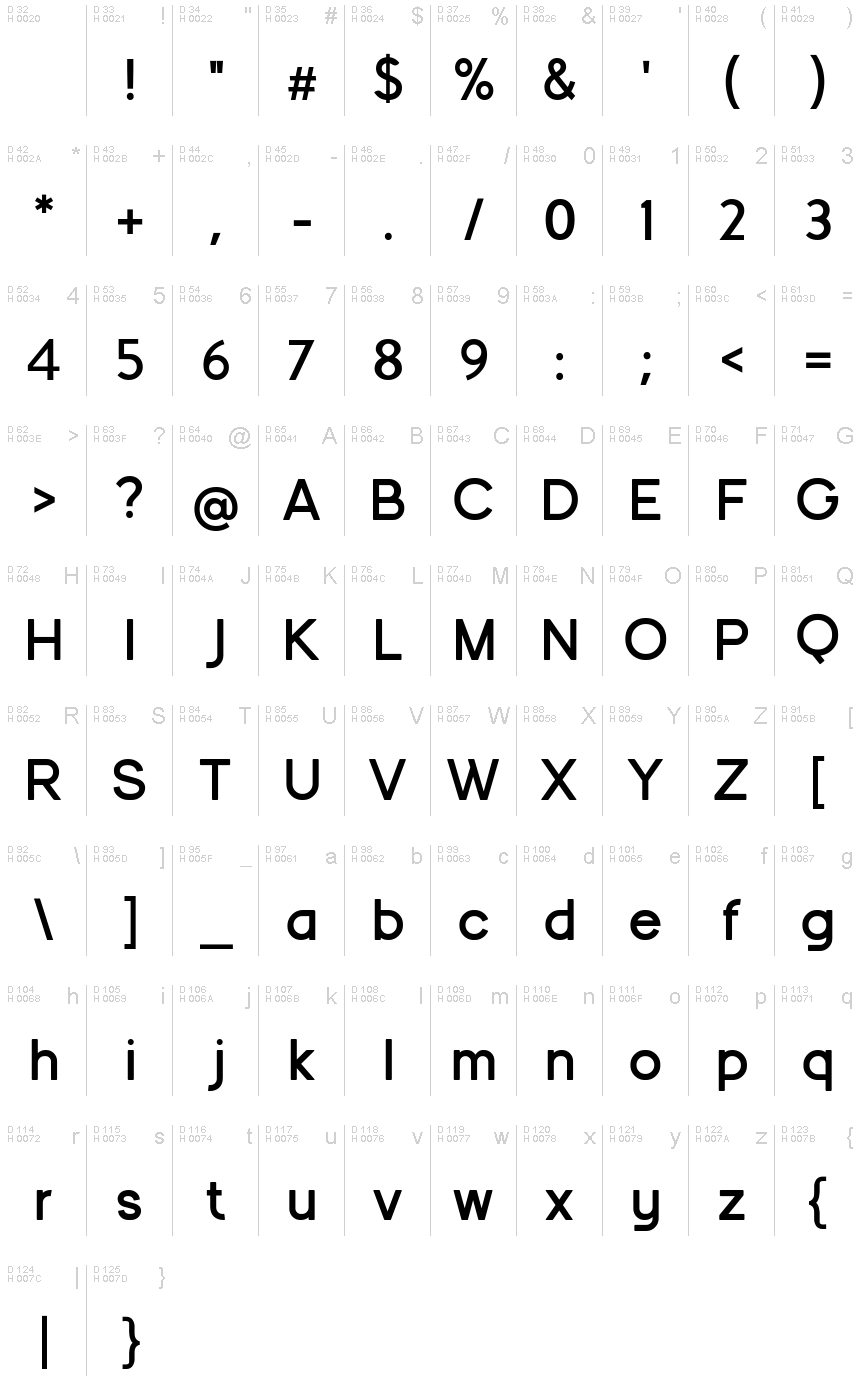
DREPHONIC
Drephonic, a striking sans-serif font crafted by UI Creative, commands attention with its bold, modern lines and minimalist elegance. Exuding a sense of confidence and sophistication, this font is a masterful blend of clean geometry and subtle curves, creating a visually captivating and versatile typographic experience.
The Drephonic font's distinctive character shines through its sharp, angular letterforms and impactful negative space, making it a compelling choice for a wide range of design applications. Its versatility allows it to seamlessly integrate into branding, editorial layouts, digital interfaces, and more, elevating the visual impact of any project with its striking, contemporary aesthetic.